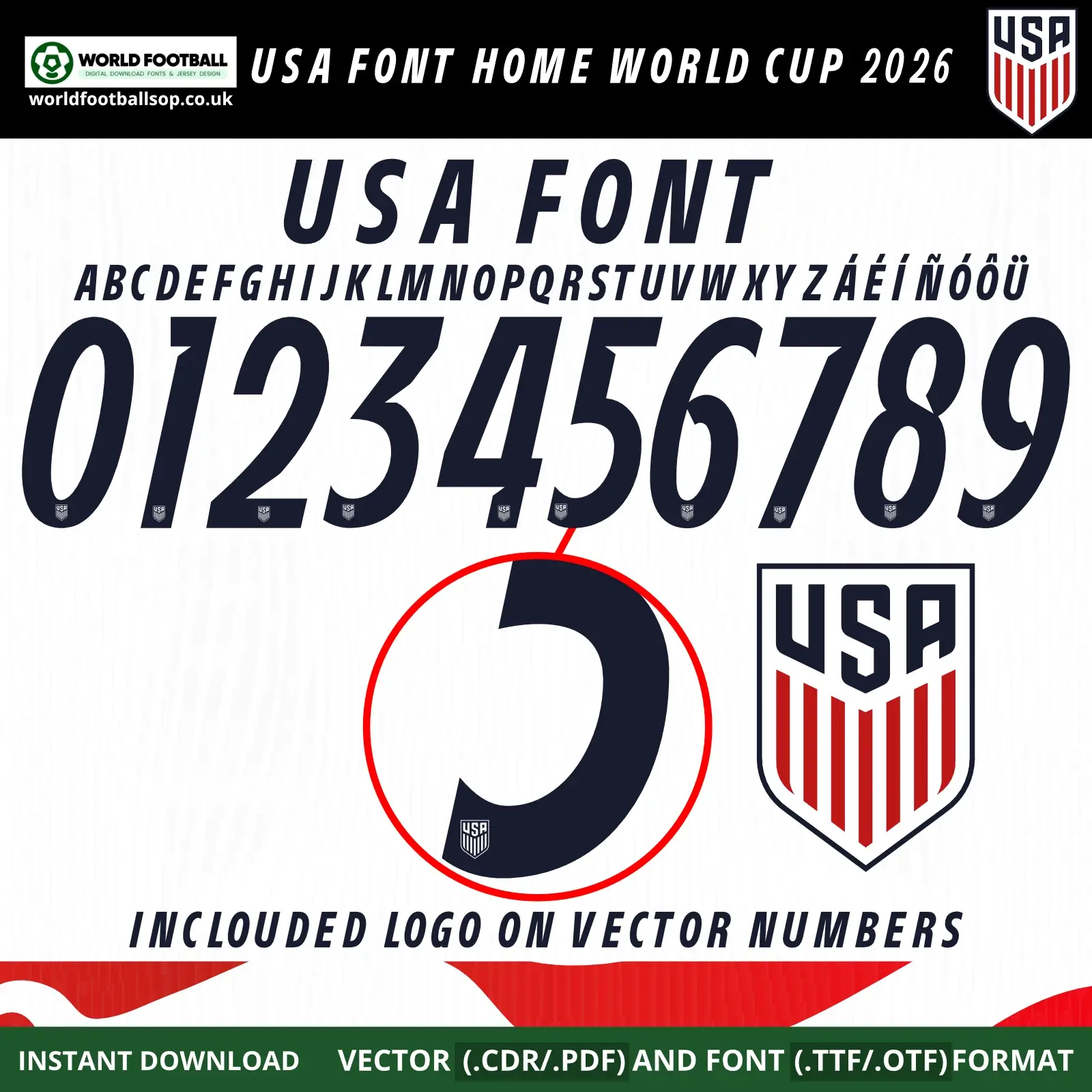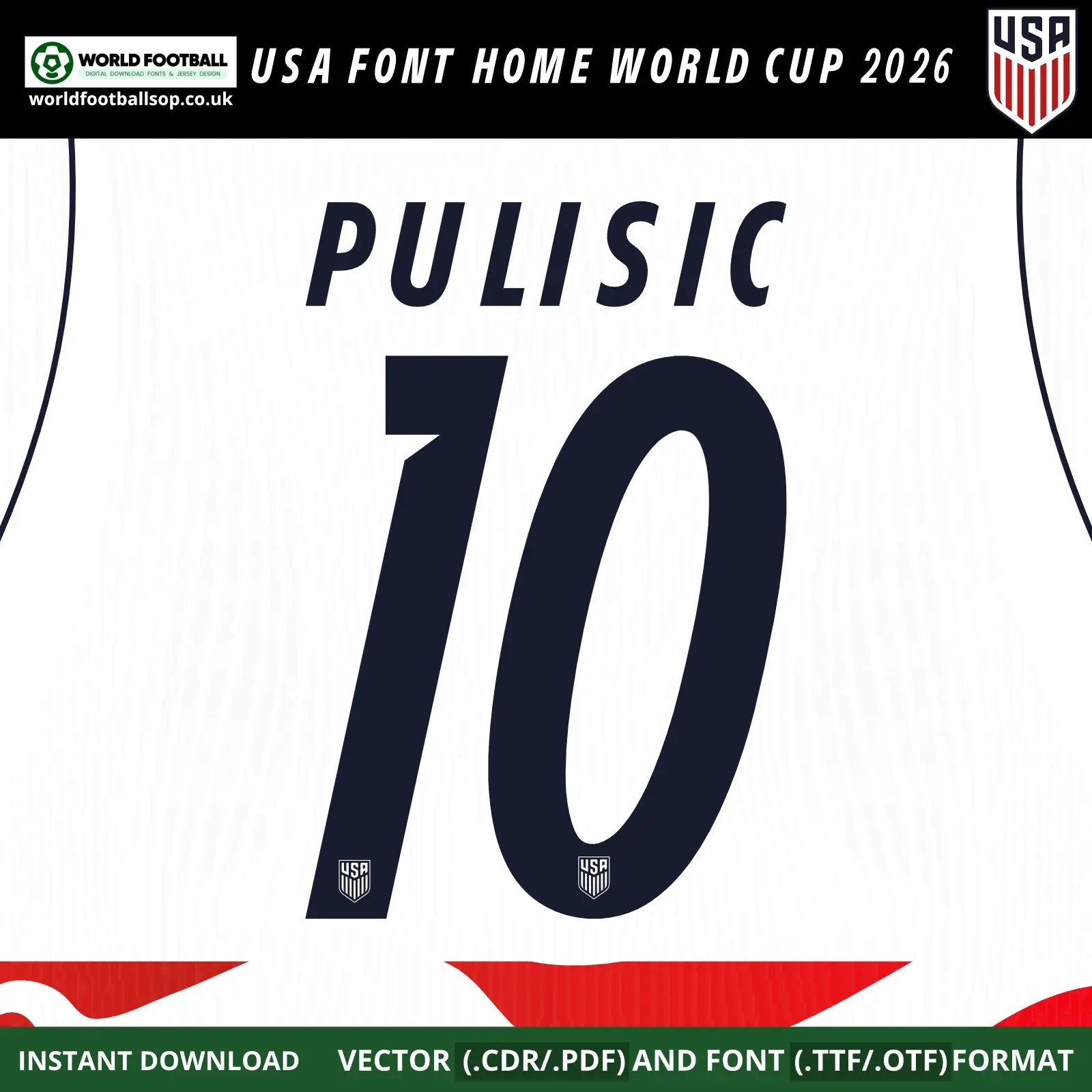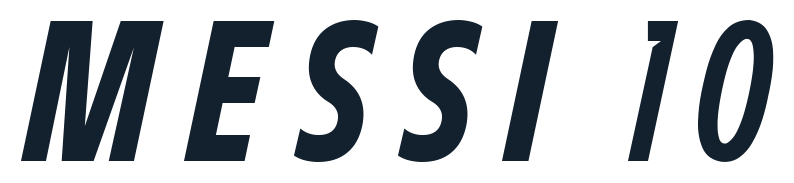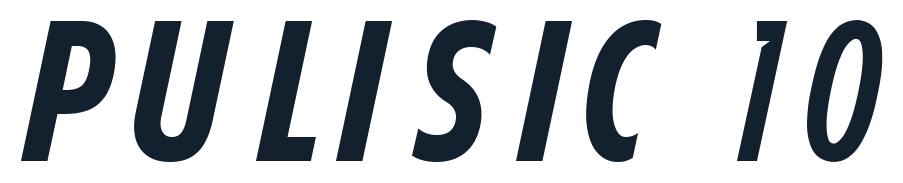
USA Font Home World Cup 2026 recreates the bold navy Stars & Stripes numbers and letters used on the USMNT 2026 home kit. Download TTF, OTF and vector files (CDR, PDF) with full A-Z alphabet, accents and 0-9 numbers featuring USA crests on vector digits for authentic Pulisic 10 namesets.
USA Font Home World Cup 2026 - Stars & Stripes Collegiate Style
The USA Font Home World Cup 2026 pack mirrors Nike’s bespoke Stars and Stripes typeface created for the United States at the 2026 World Cup. The numbers are tall, slightly condensed and heavily slanted, combining a classic collegiate feel with dynamic inner cut‑outs for a modern American sports look. On your covers the digits appear in deep navy over the off‑white “Sail” home shirt base, matching the bold wavy flag‑inspired striping of the new USMNT kit.
Designed for kit printers, collectors and designers, this font lets you build accurate USA 2026 World Cup home Namesets for players like Pulisic 10 , Reyna and the rest of the Stars and Stripes. Vector numbers include a small USA shield at the base for match‑style prints, while the TTF/OTF Fonts Football stay clean for general graphic design, posters and social media artwork.
• Full uppercase A-Z alphabet plus accented characters (Á É Í Ñ Ó Ö Ü, etc.) for North American and international player names.​
• Numbers 0-9 in official USA 2026 home style, ready for back, front and shorts printing.​​
Design highlights
• Collegiate American vibe: Thick, slanted numbers with strong verticals echo classic US college and pro‑sports typography while staying clean and TV‑friendly.​​
• Stars & Stripes identity: Color and style match the Nike USA 2026 home kit with wavy flag‑stripe pattern, off‑white base and navy details.​
• Crest integration: Vector digits carry a small USA shield at the bottom, just like the official match shirts.​​